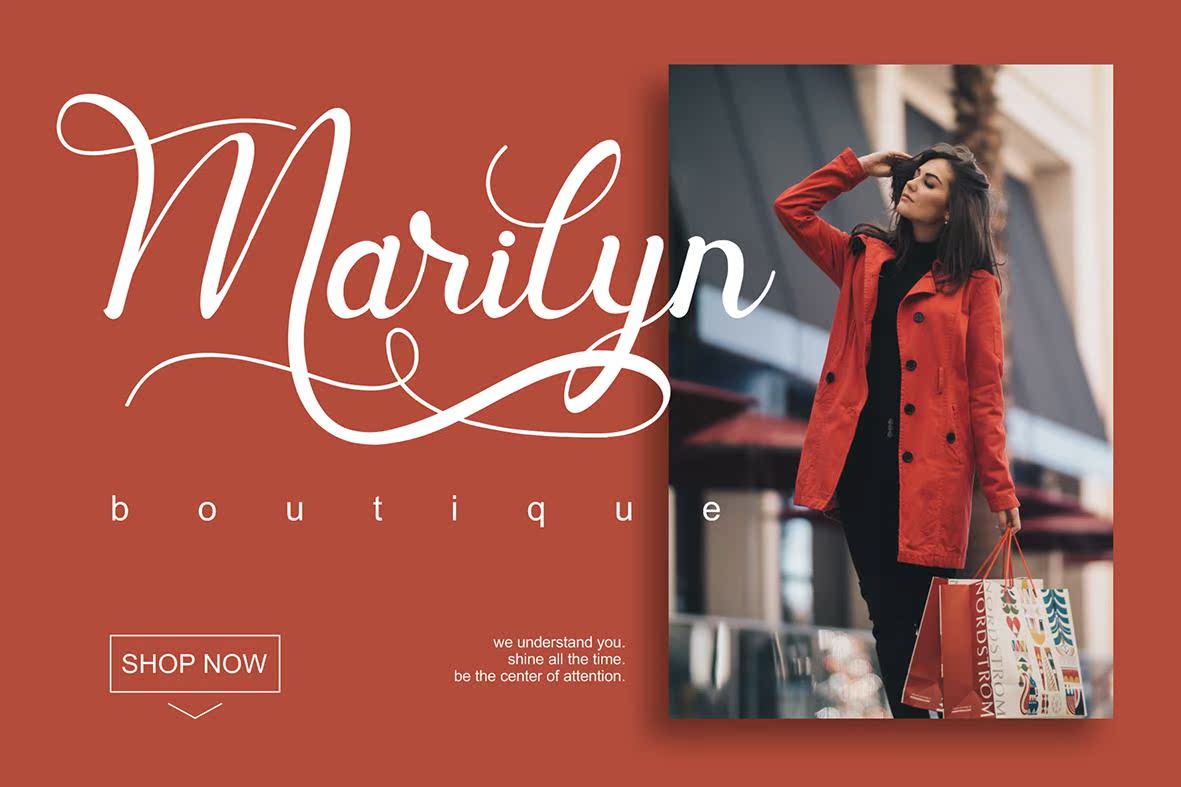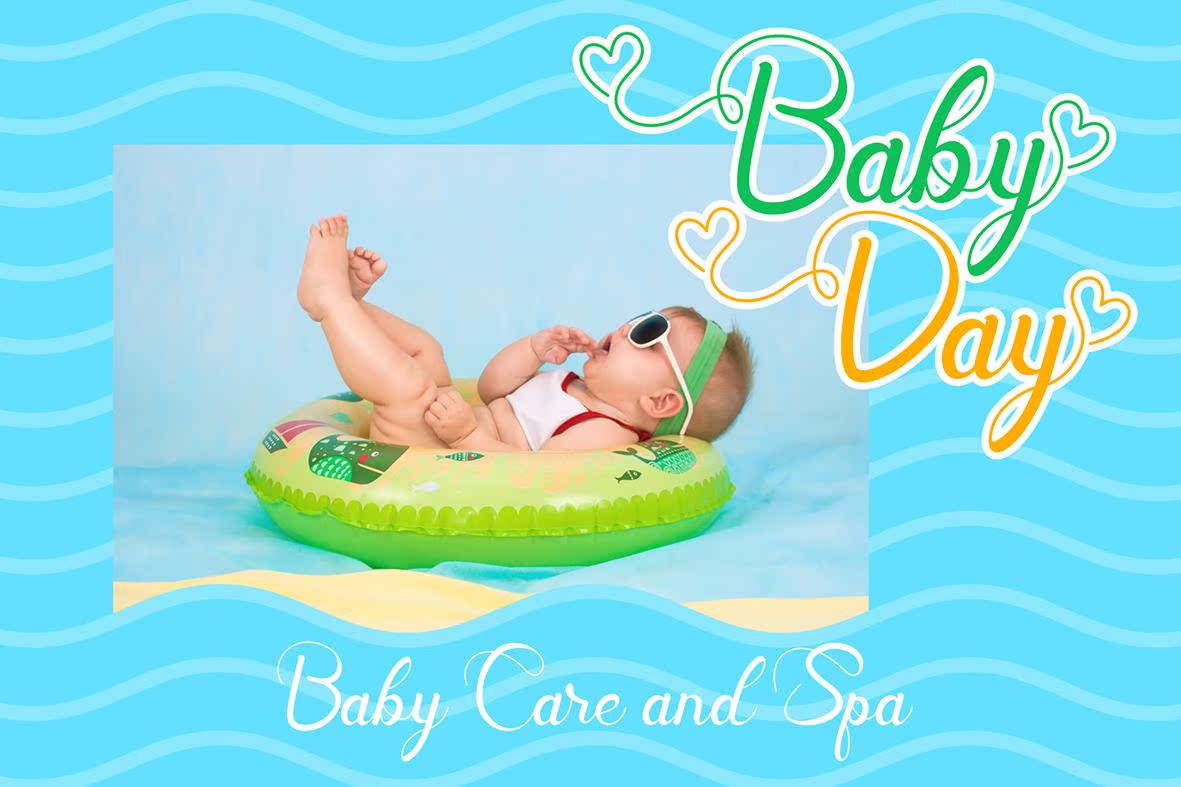
modernscriptfont.Perfectforlogotype,headline,Appeals,quotes,posters,Labels with Vintage and ClusiveFeels.modernscriptfont.Perfectforlogotype,headline,Appeals,quotes,posters,Labels with Vintage and Clusiveels。